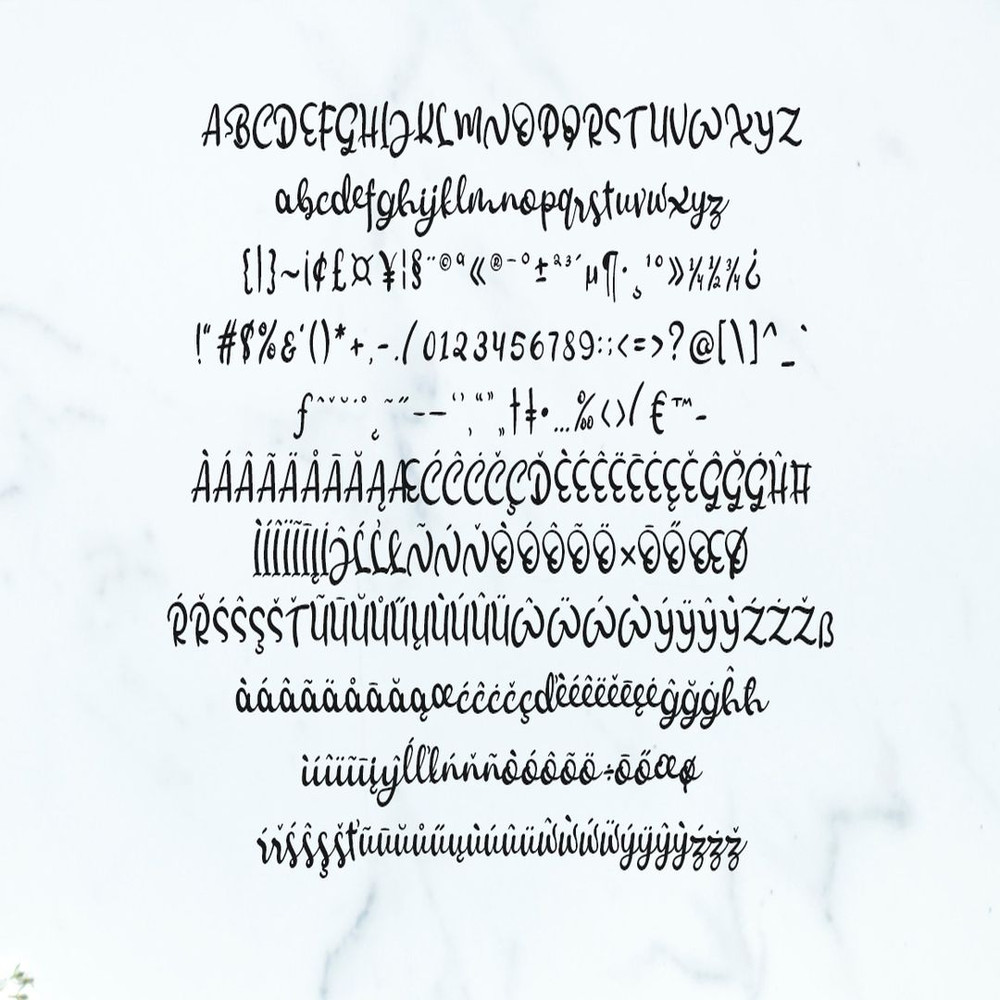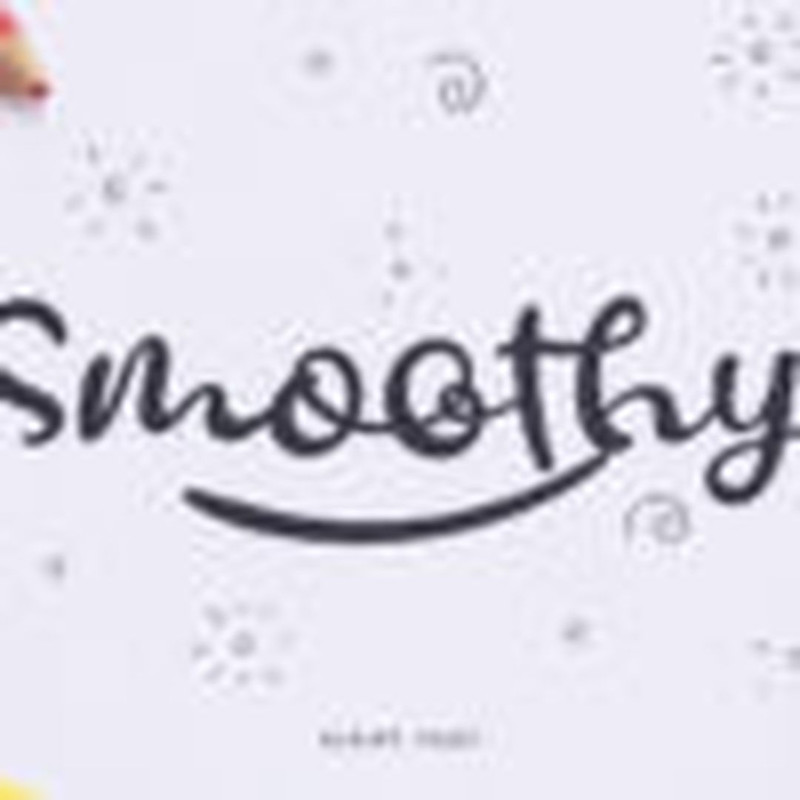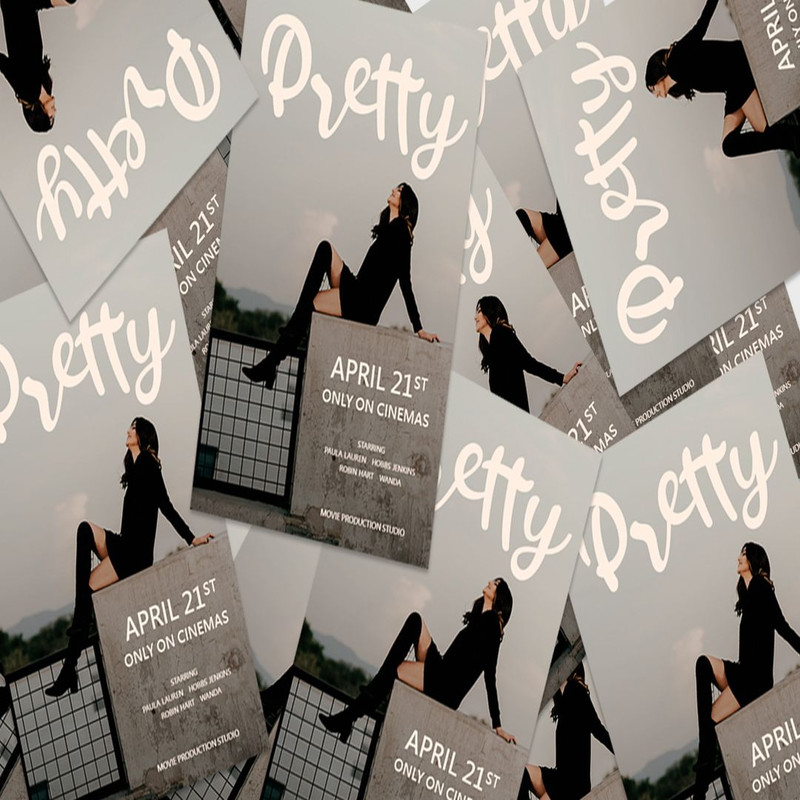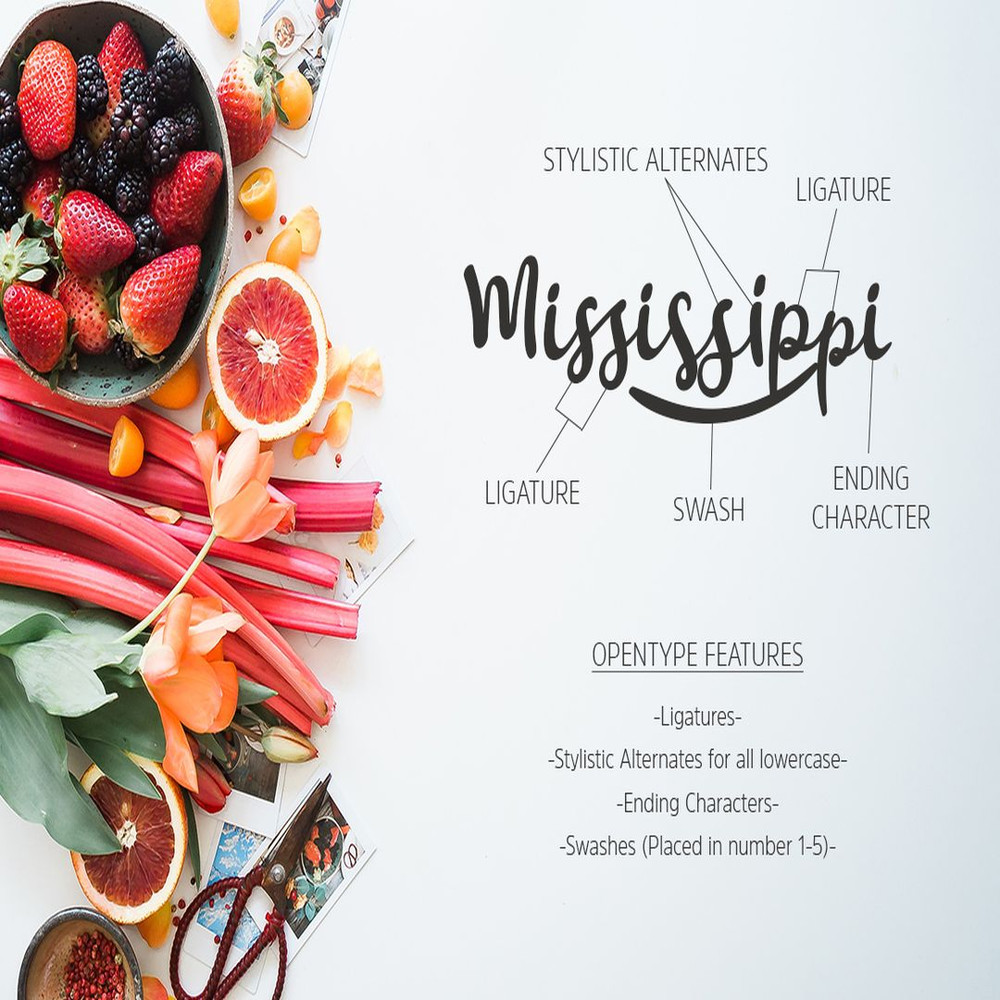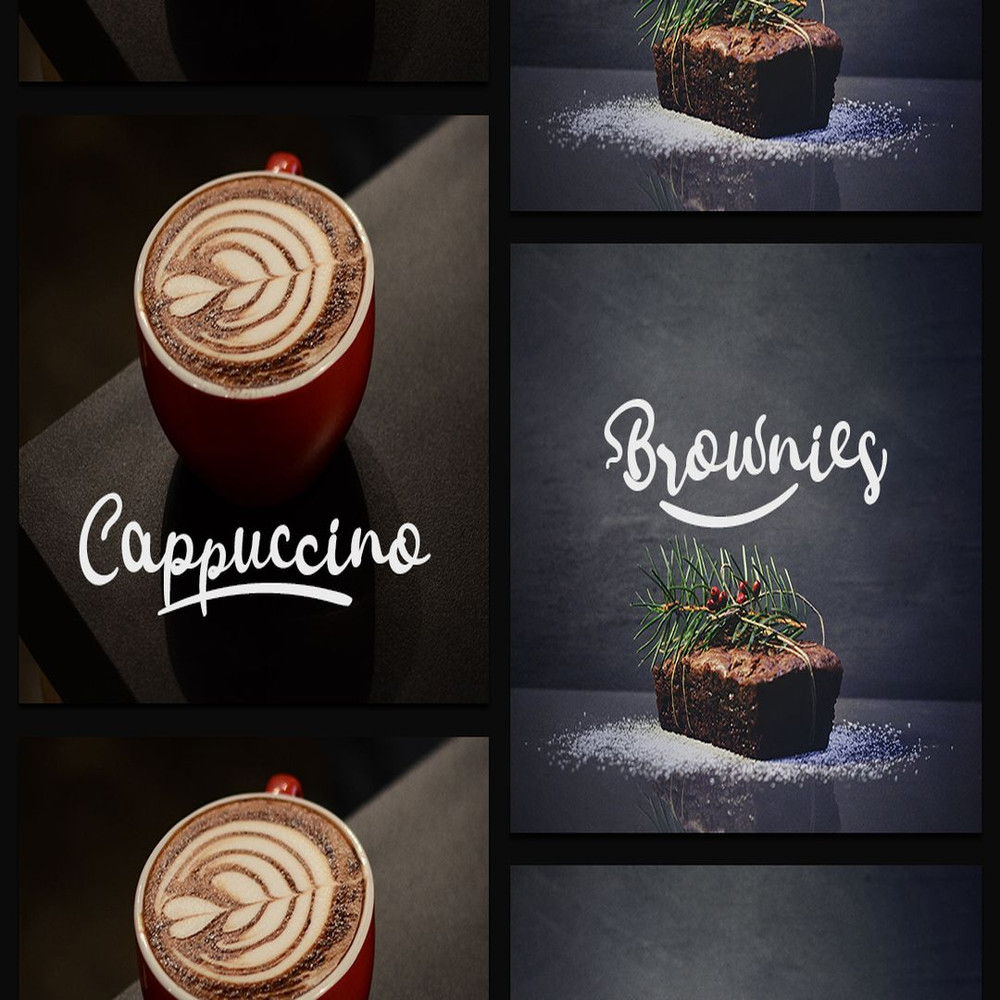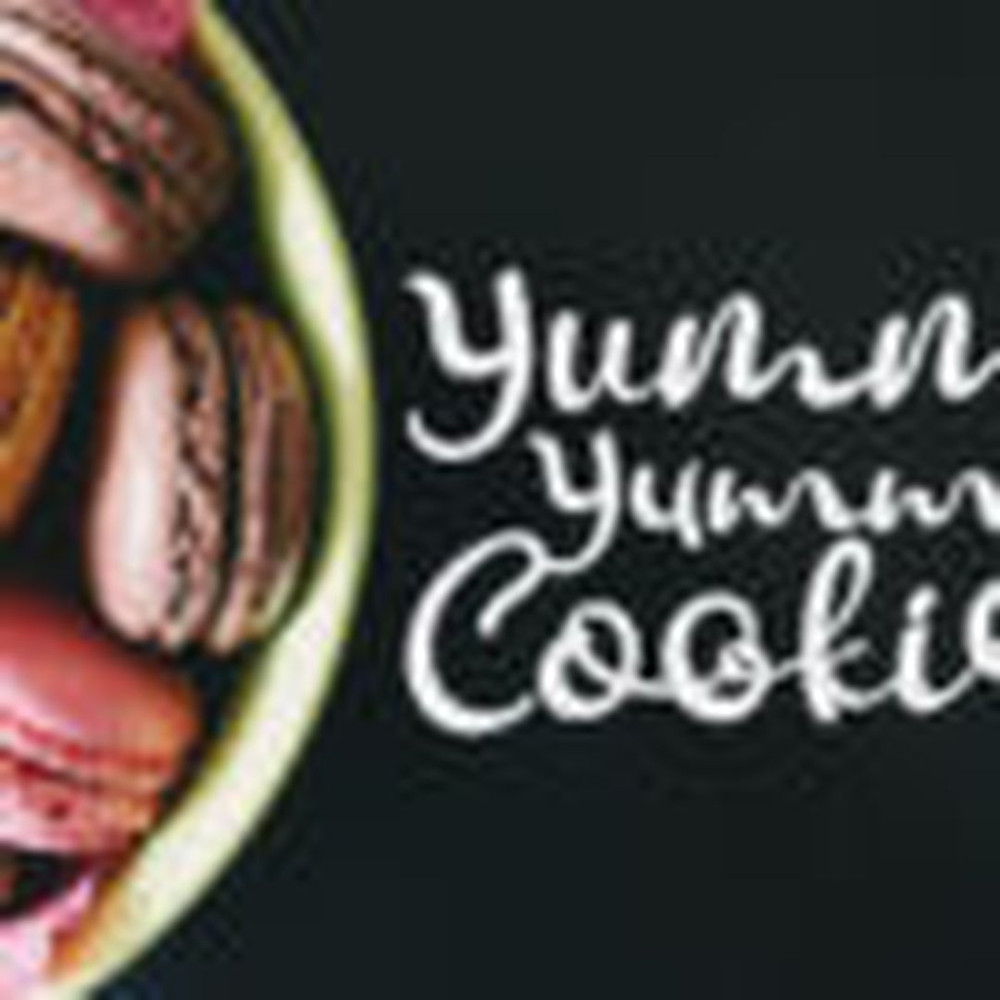
Smoothy Trending Fonts - Digital Font
Smoothy is sweet bold script font. Created digitally using digital brush, Smoothy has smooth edge, very suitable for almost every design projects. It’s good for logo, branding, packaging, books, t-shirt, headline, wedding, quote, and many more.
Smoothy packed with Ligatures, Stylistic Alternates, Contextual Alternates, and also Swashes in OTF and TTF files.
Smoothy is sweet bold script font. Created digitally using digital brush, Smoothy has smooth edge, very suitable for almost every design projects. It’s good for logo, branding, packaging, books, t-shirt, headline, wedding, quote, and many more.
Smoothy packed with Ligatures, Stylistic Alternates, Contextual Alternates, and also Swashes in OTF and TTF files.
Smoothy Trending Fonts - Digital Font
Smoothy is sweet bold script font. Created digitally using digital brush, Smoothy has smooth edge, very suitable for almost every design projects. It’s good for logo, branding, packaging, books, t-shirt, headline, wedding, quote, and many more.
Smoothy packed with Ligatures, Stylistic Alternates, Contextual Alternates, and also Swashes in OTF and TTF files.
Smoothy is sweet bold script font. Created digitally using digital brush, Smoothy has smooth edge, very suitable for almost every design projects. It’s good for logo, branding, packaging, books, t-shirt, headline, wedding, quote, and many more.
Smoothy packed with Ligatures, Stylistic Alternates, Contextual Alternates, and also Swashes in OTF and TTF files.